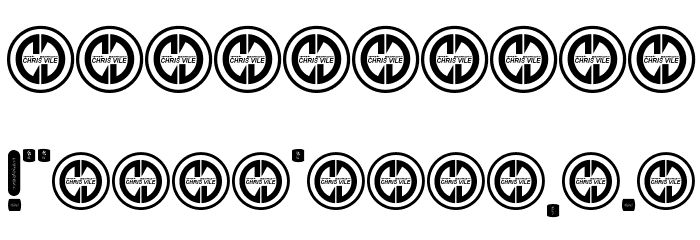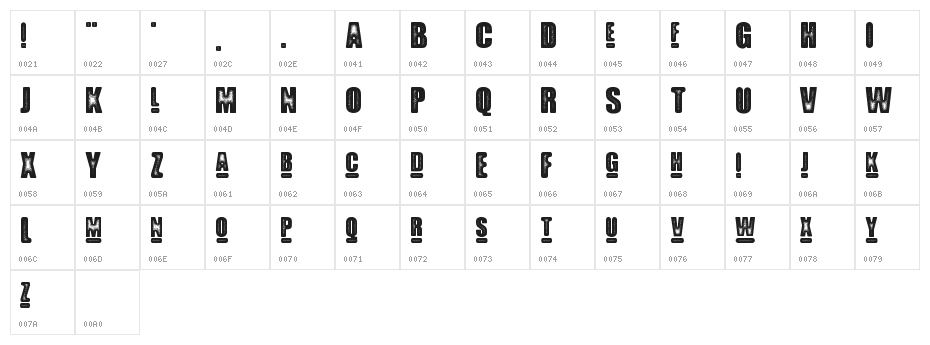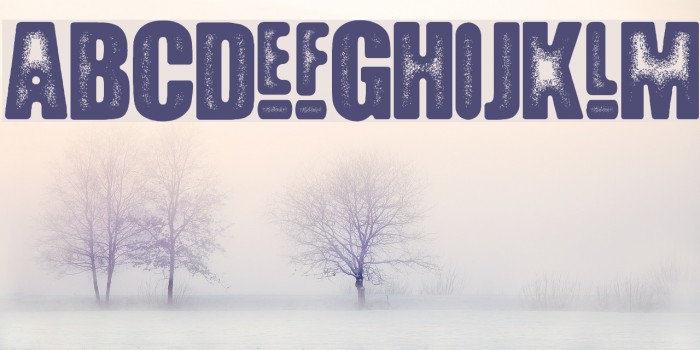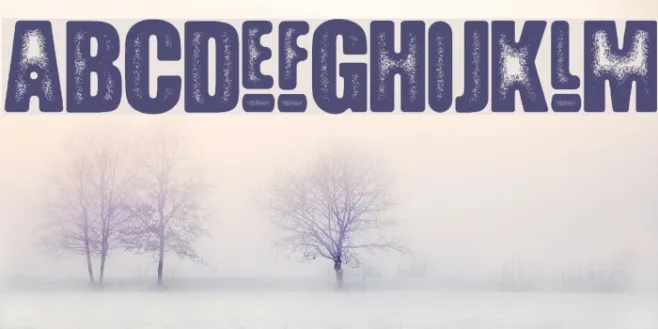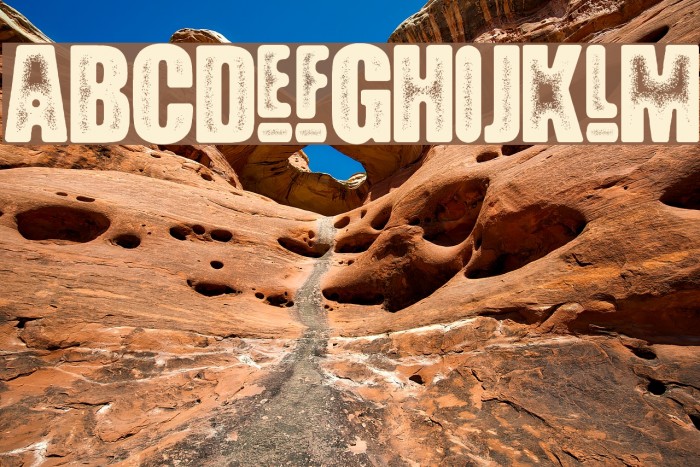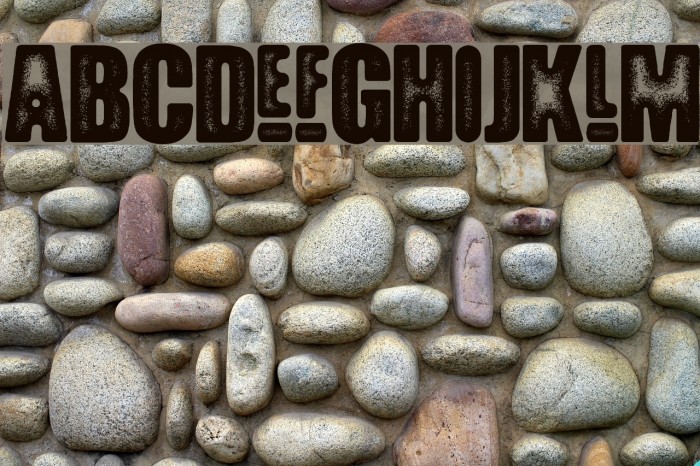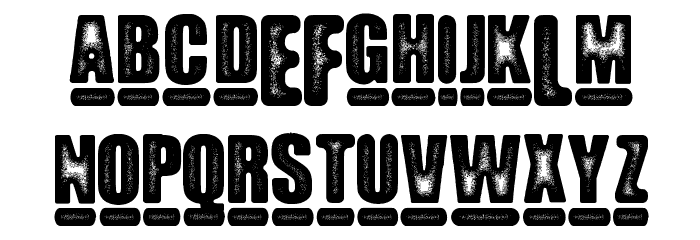
Blue Waffle Font
Blue Waffle Description
This font features a bold, distressed style with a textured appearance that gives it a rugged, vintage feel. The uppercase letters are prominent and impactful, making them ideal for attention-grabbing headlines or logos. The font includes a full set of uppercase letters, numerals, and a selection of special characters, all maintaining the same distressed aesthetic. The characters are wide and have a substantial presence, with a consistent texture that adds a unique character to each letter. This font is perfect for projects that require a bold statement or a retro vibe.
| Proposed Projects | Ideal for vintage-themed posters, logos, branding, and apparel design. |